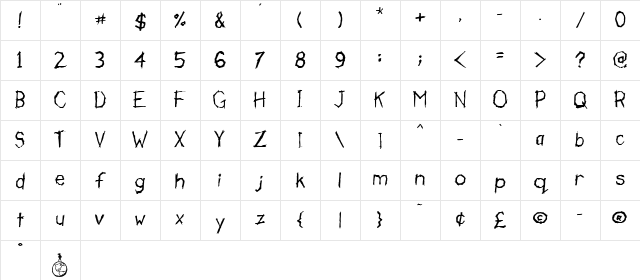
Frenetic Normal
Design Context for Frenetic
Frenetic is a composed and adaptable typeface that performs quietly and consistently across a wide range of design contexts.